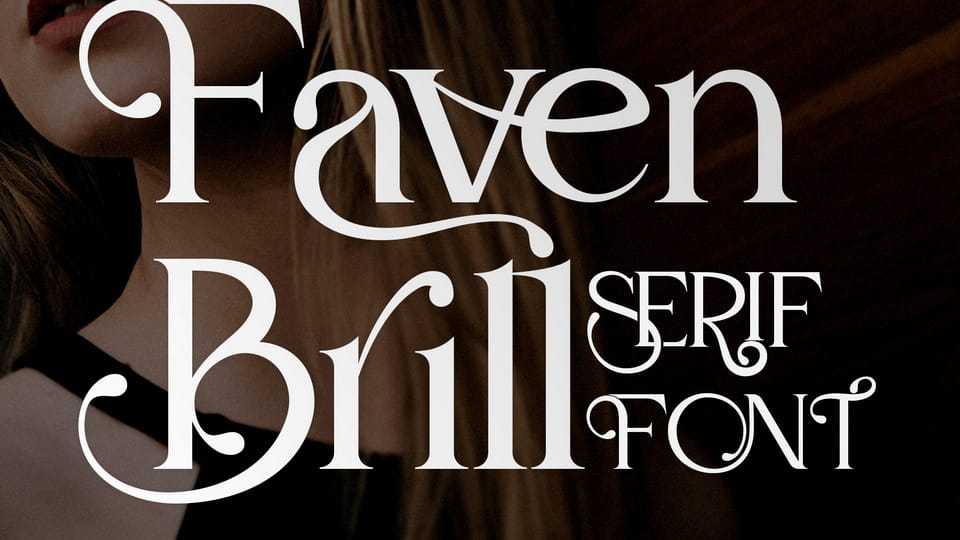
Download Faven Brill font, a refined serif typeface that captures both grace and confidence. With its elegant letterforms and subtle artistic touches, it delivers a sense of luxury and sophistication.
Designer: NDNL Studio